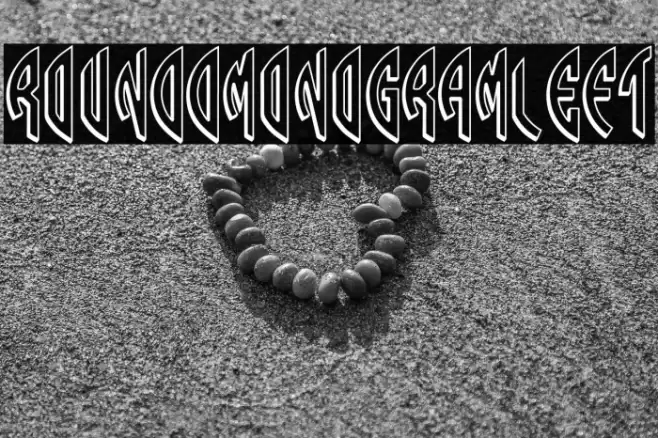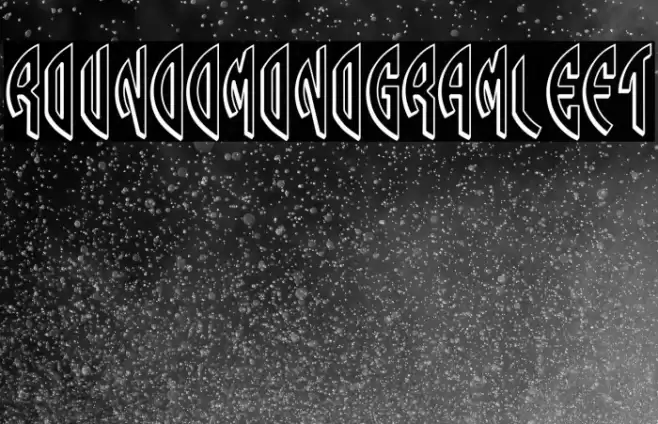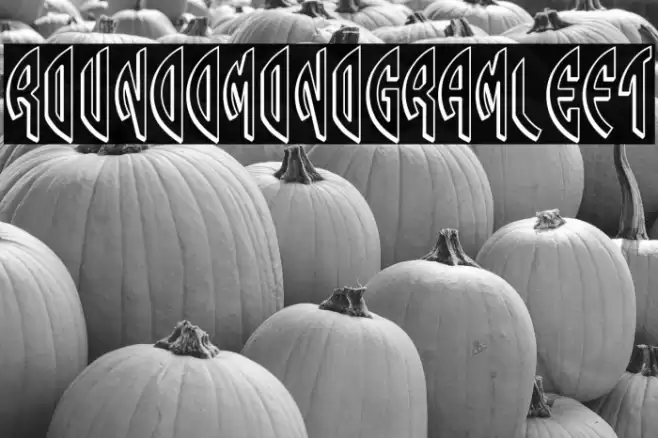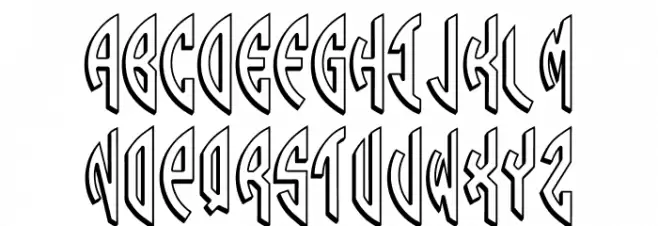
Round_3D_Monogram_Left Font
Round_3D_Monogram_Left Description
This font features a bold, three-dimensional design with a monogram style that gives each character a distinct leftward shadow effect. The letters are uppercase and exhibit a geometric, angular form that adds a sense of depth and dimension. The bold outlines enhance the 3D illusion, making the characters stand out prominently. The style is reminiscent of vintage signage or logos, with a modern twist that makes it suitable for contemporary design projects. Its unique appearance is eye-catching and memorable, ideal for creating a strong visual impact.
A bold, 3D monogram font with angular, geometric characters and a leftward shadow effect from Uncategorized fonts.
- Proposed Projects: Ideal for logo design, branding, posters, and any project requiring a bold, impactful typeface.
- Contrast: High
- Use Case: Logos, Headlines, Posters